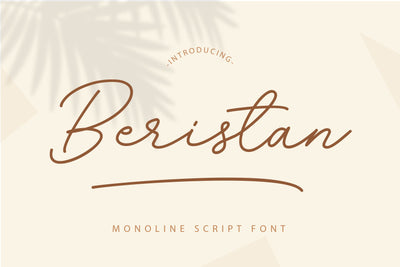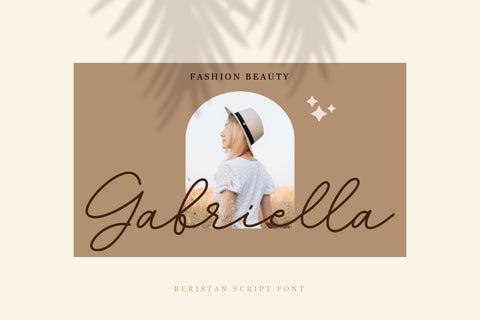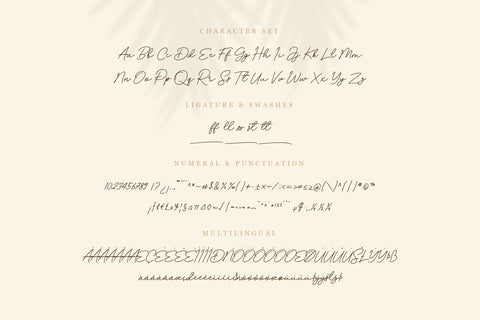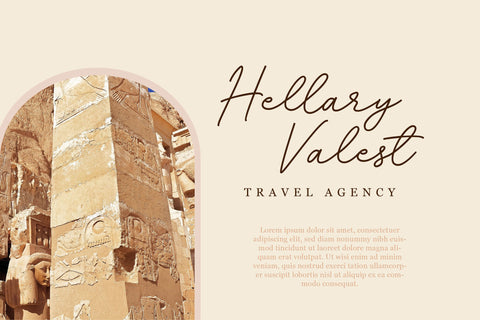
Beristan A Handwritten Script Font
Beristan is a thin lettered and graceful script font. Fall for its ravishing style and use it to create gorgeous wedding invitations, beautiful stationary art, eye-catching social media posts, and much more!
– Uppercase, Lowercase, Numerals & Punctuations
– Ligature & Alternate
– Multilingual support